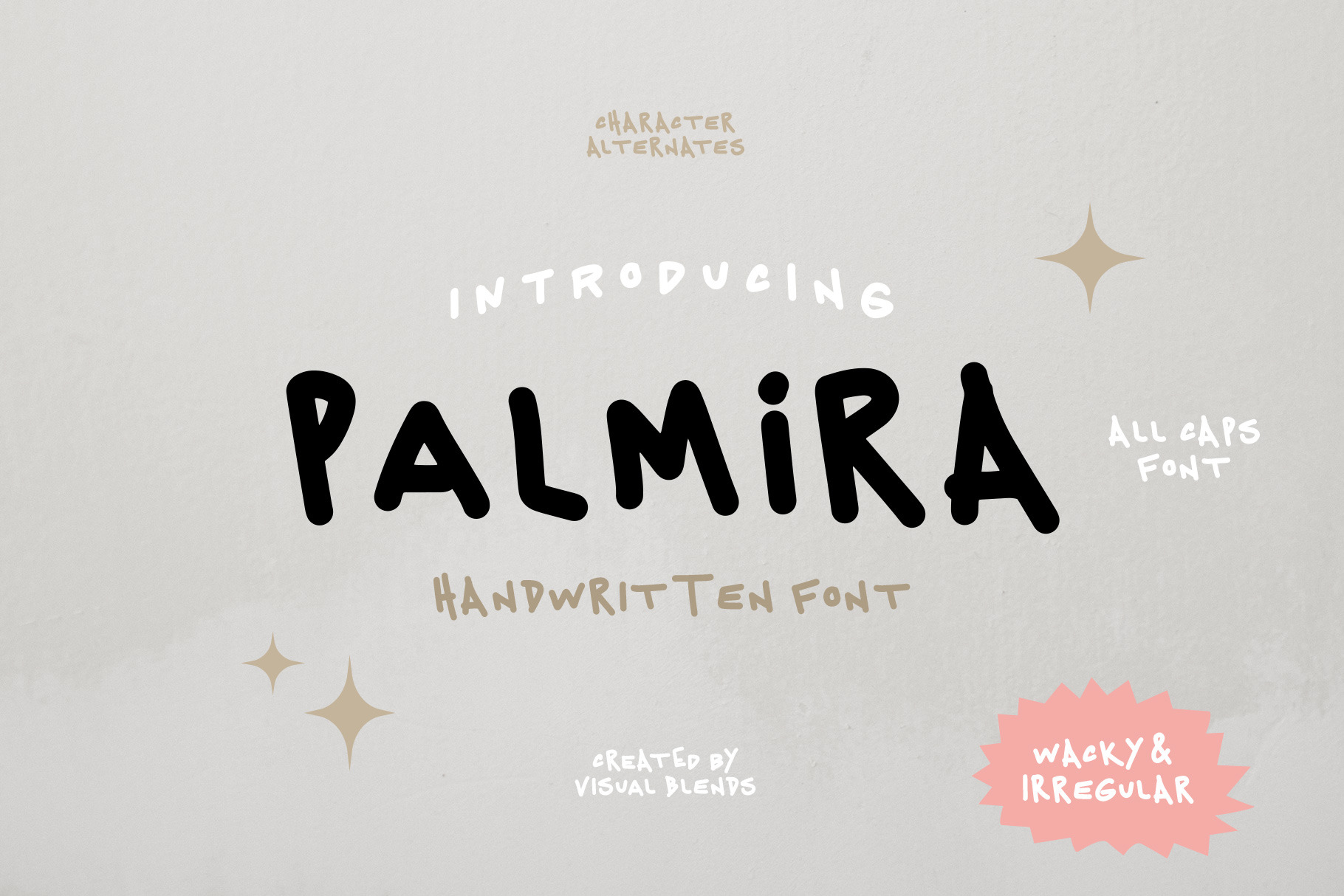
Palmira- Handwritten Font
Introducing Palmira!– A wacky and irregular handwritten font with subtle imperfections and an irregular baseline- giving your design a handmade look. Inspired by summer, Palmira has a fun tropical vibe! This font includes 4 alternate styles for each character. Also, you can switch between different alt characters using upper and lowercase.
1) Palmira - Font- All Caps. Solid filled font with irregularities for a handmade look.
Palmira is perfect for designs with a handcrafted aesthetic. In addition, Palmira is great for Branding Projects, Apparel, Posters, Packaging and more! Thank you for your support and for viewing my shop. Feel free to reach out with any questions.